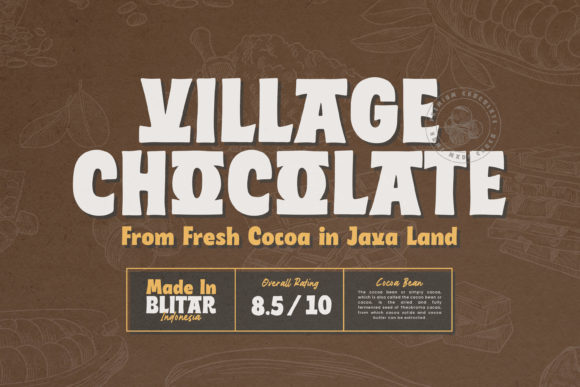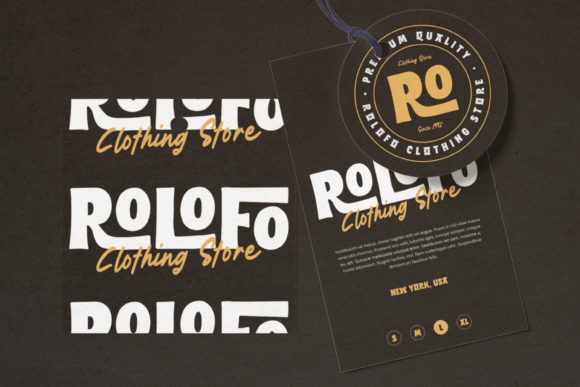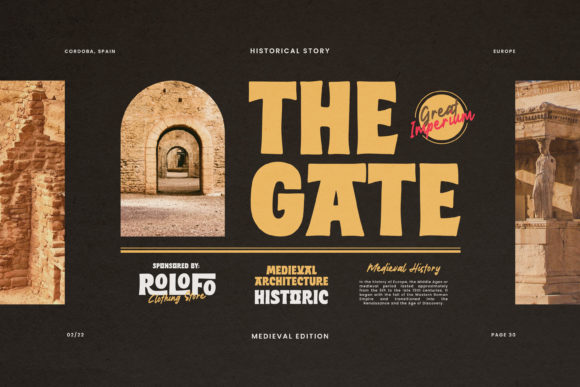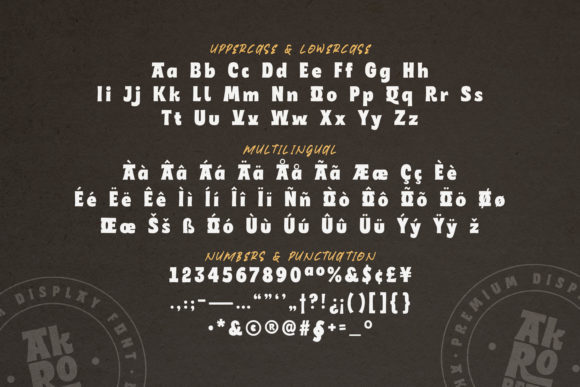
Unlock Your Creativity with the Akrobeat Font
You’ve spent hours brainstorming, sketching, and refining your design. The moment of truth has finally arrived – it’s time to present your masterpiece to the world. As you search for the perfect font to bring your creation to life, you can’t help but feel a sense of excitement and nervousness. This is where the magic happens, and the right font can make all the difference.
Introducing the Akrobeat Font, a bold and impressive display font designed to take your creative projects to the next level. This eye-catching typeface is perfect for designers who want to make a statement and leave a lasting impression. With the Akrobeat Font, you’ll be able to add a touch of personality and flair to your designs, setting them apart from the rest. Whether you’re a seasoned designer or just starting out, this font is sure to become your go-to choice for any project that requires a little extra pizzazz.
Akrobeat Font Key Features
- Font Style: Akrobeat is a modern, bold, and playful sans-serif font designed for digital use.
- Character Set: The font includes a wide range of characters, including Latin, Cyrillic, and Greek alphabets, as well as punctuation marks and symbols.
- Unique Characteristics: The font features a unique blend of geometric and organic elements, giving it a distinctive and eye-catching appearance.
Akrobeat Font Review
Overall, I think the Akrobeat font is a visually appealing and unique addition to any design project. ✨ Its eclectic mix of digital and analog elements makes it stand out from more traditional fonts. The font is well-suited for projects that require a bold, eye-catching aesthetic.
Here are some of the strengths of the Akrobeat font:
- ✨ Highly customizable: The font includes a wide range of styles and weights, allowing designers to tailor the look to suit their needs.
- ✨ Versatile: Akrobeat can be used for a variety of projects, from digital interfaces to print materials.
- ✨ Well-suited for modern designs: The font’s blend of digital and analog elements makes it perfect for projects that require a modern, cutting-edge look.
- ⚠️ Limited legibility: In certain contexts, the Akrobeat font can be difficult to read, particularly at small font sizes.
- ⚠️ May not be suitable for all audiences: The font’s bold, eclectic design may not be suitable for projects that require a more conservative or traditional aesthetic.
Overall, I think the Akrobeat font is a great addition to any designer’s toolkit. While it may not be suitable for every project, it’s a versatile and highly customizable font that can add a unique touch to a wide range of designs.
Getting the Most Out of Akrobeat Font
To get the most out of Akrobeat Font, use it for:
- Playful and creative projects.
- Branding and logos that require a unique touch.
- Designing posters, flyers, and other marketing materials.
What is the character set and language support for the Akrobeat Font?
The Akrobeat Font supports a wide range of languages, including Latin, Cyrillic, Greek, and many others. The font includes over 800 glyphs, covering a vast array of characters, including punctuation, numerals, and special symbols. However, please note that the font may not support all languages or characters used in specific regions or industries.